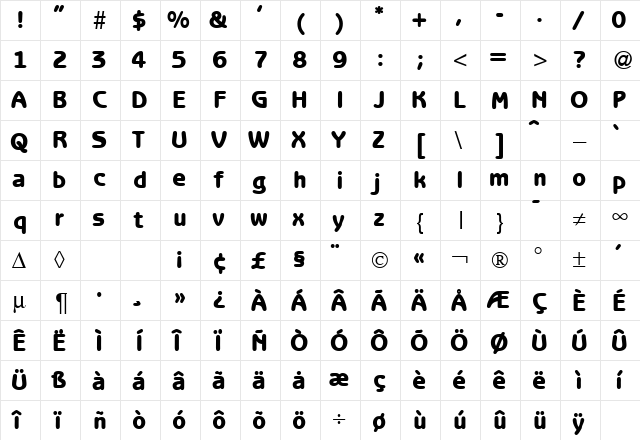
BenjaminSansHeavy Regular
Design Context for BenjaminSansHeavy Typeface
BenjaminSansHeavy is a composed and adaptable typeface that performs quietly and consistently across a wide range of design contexts.